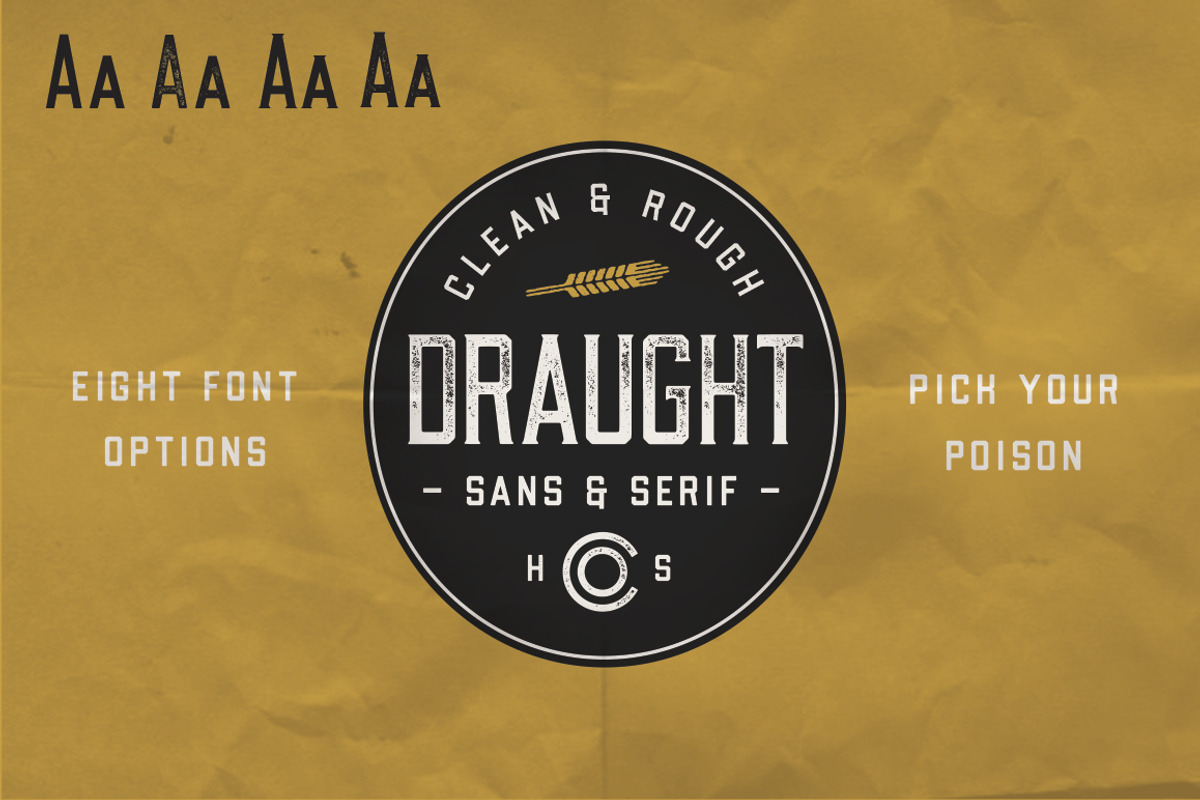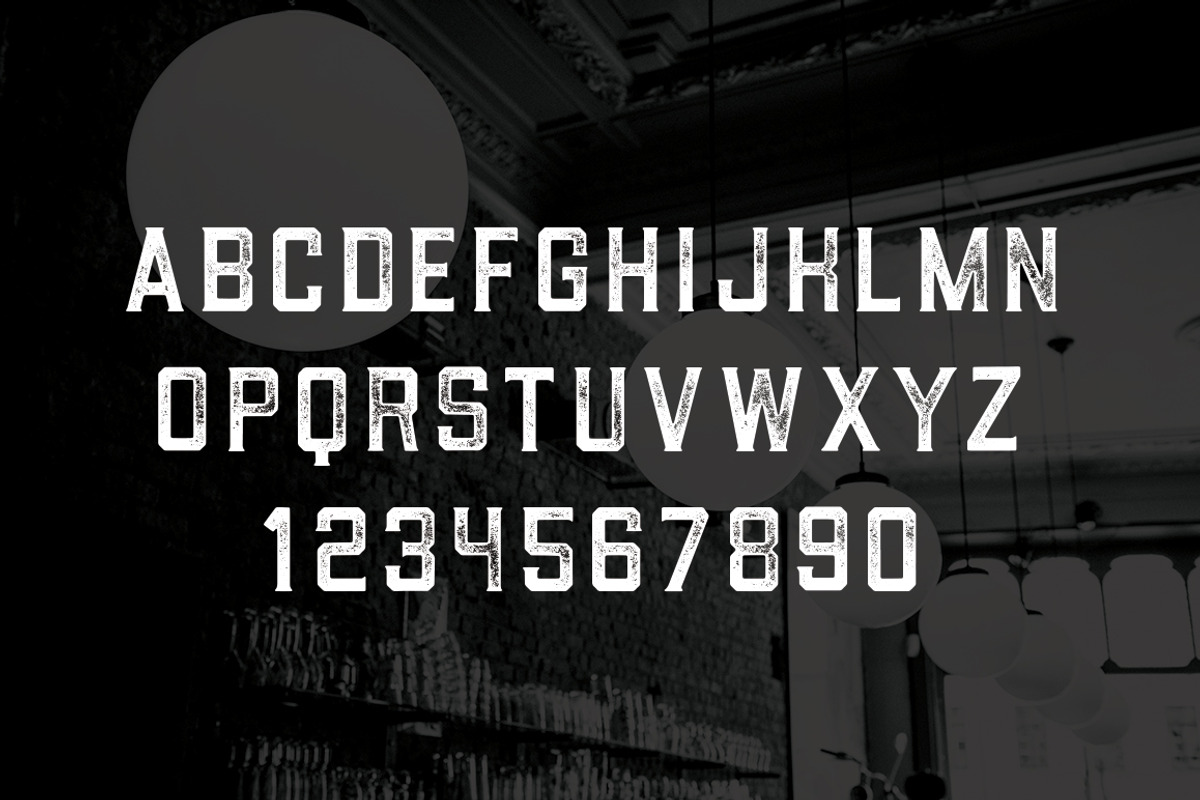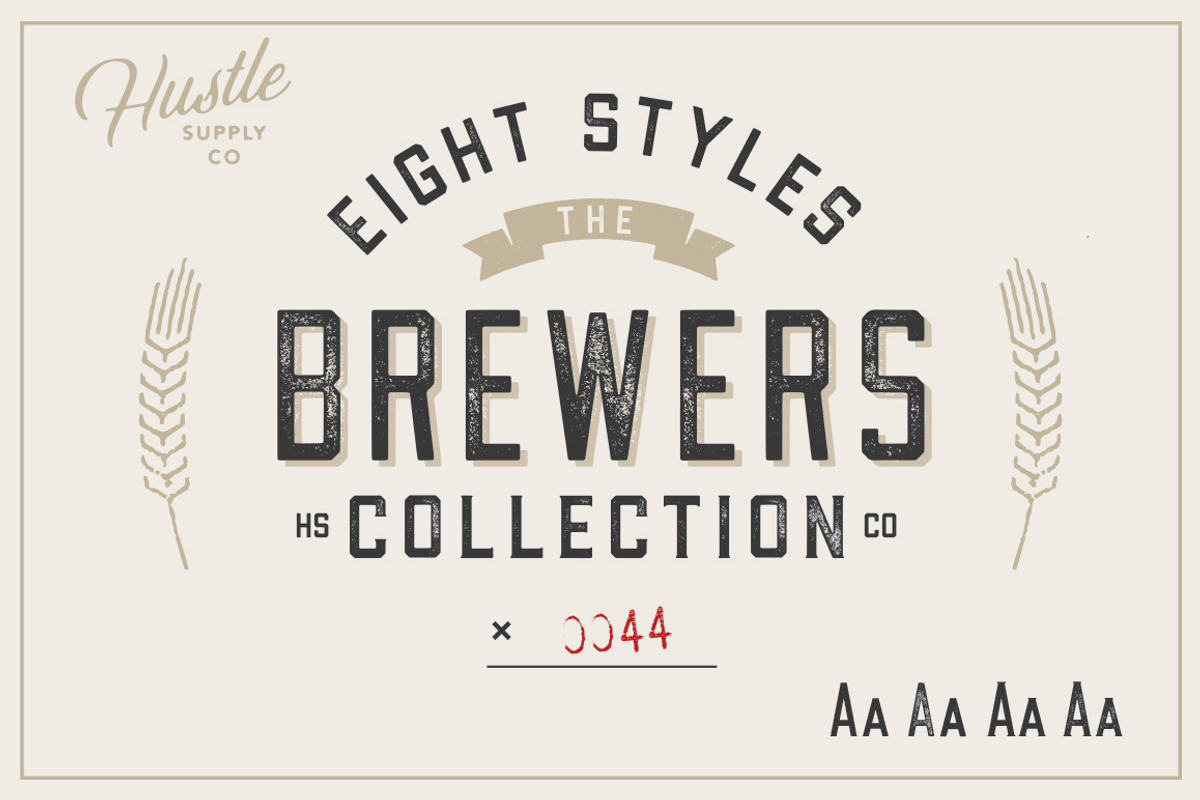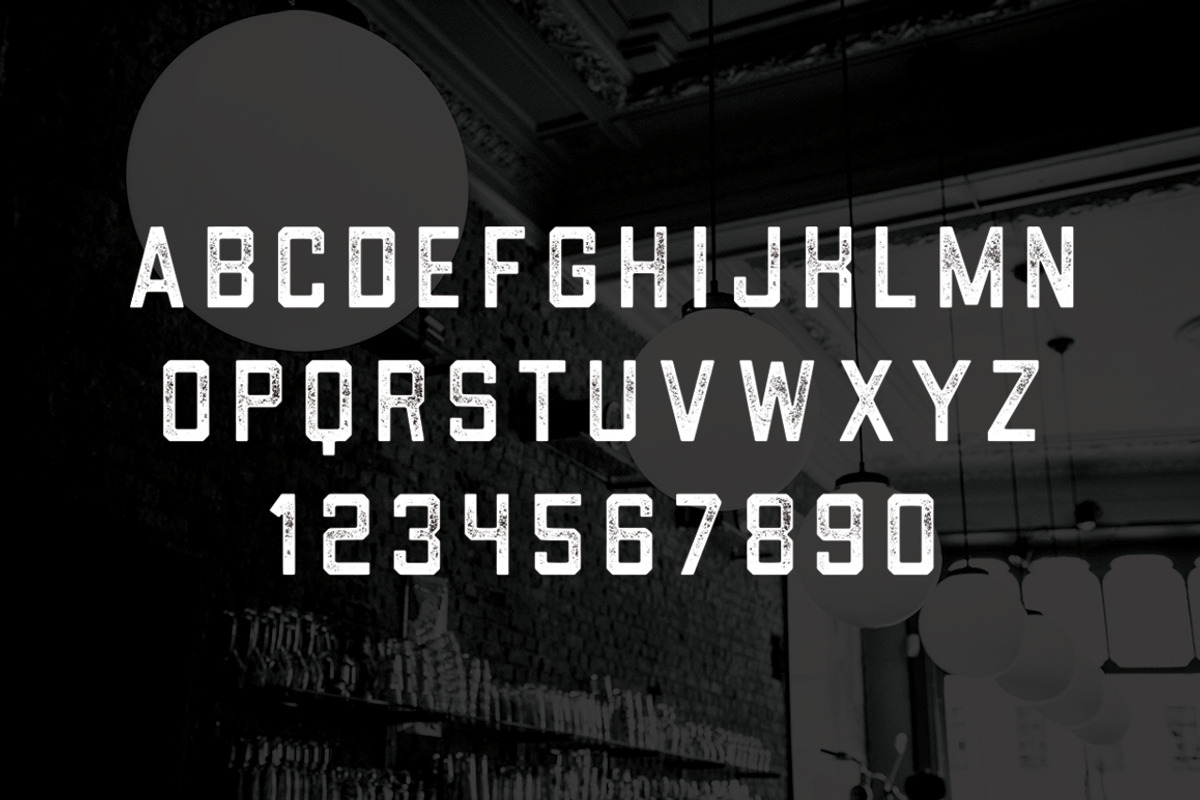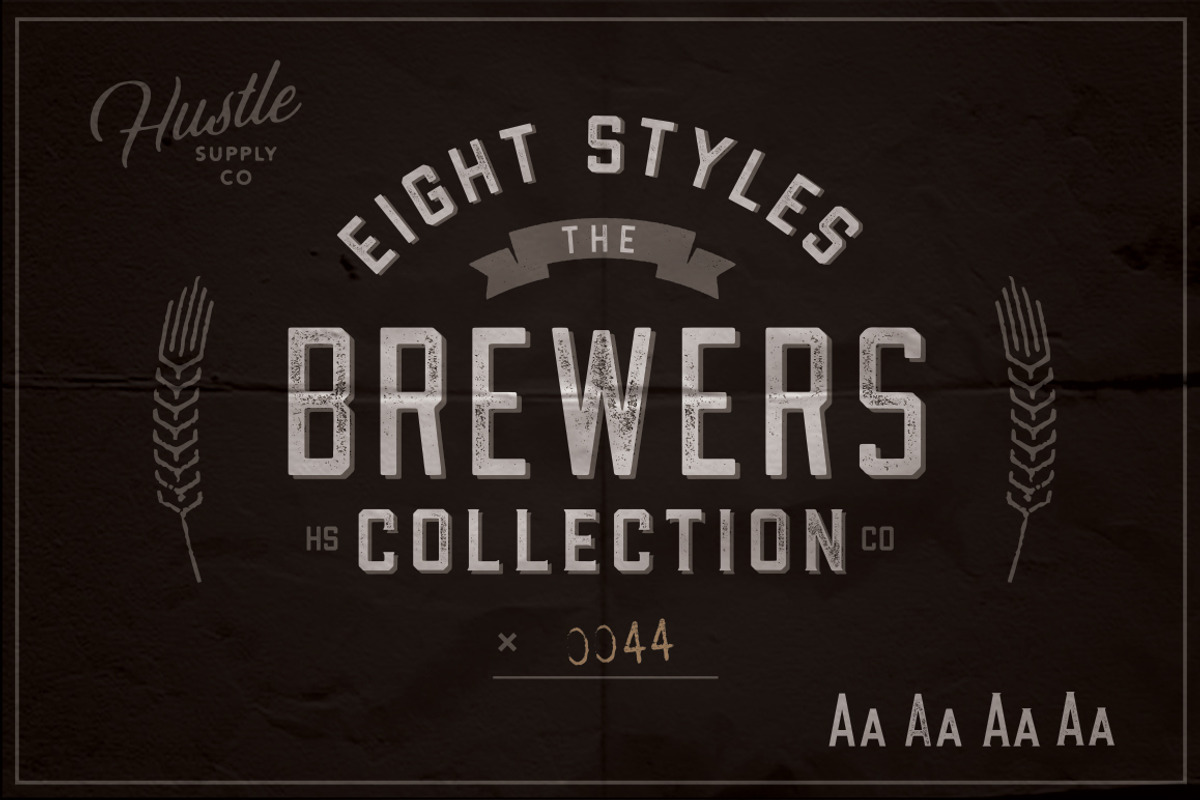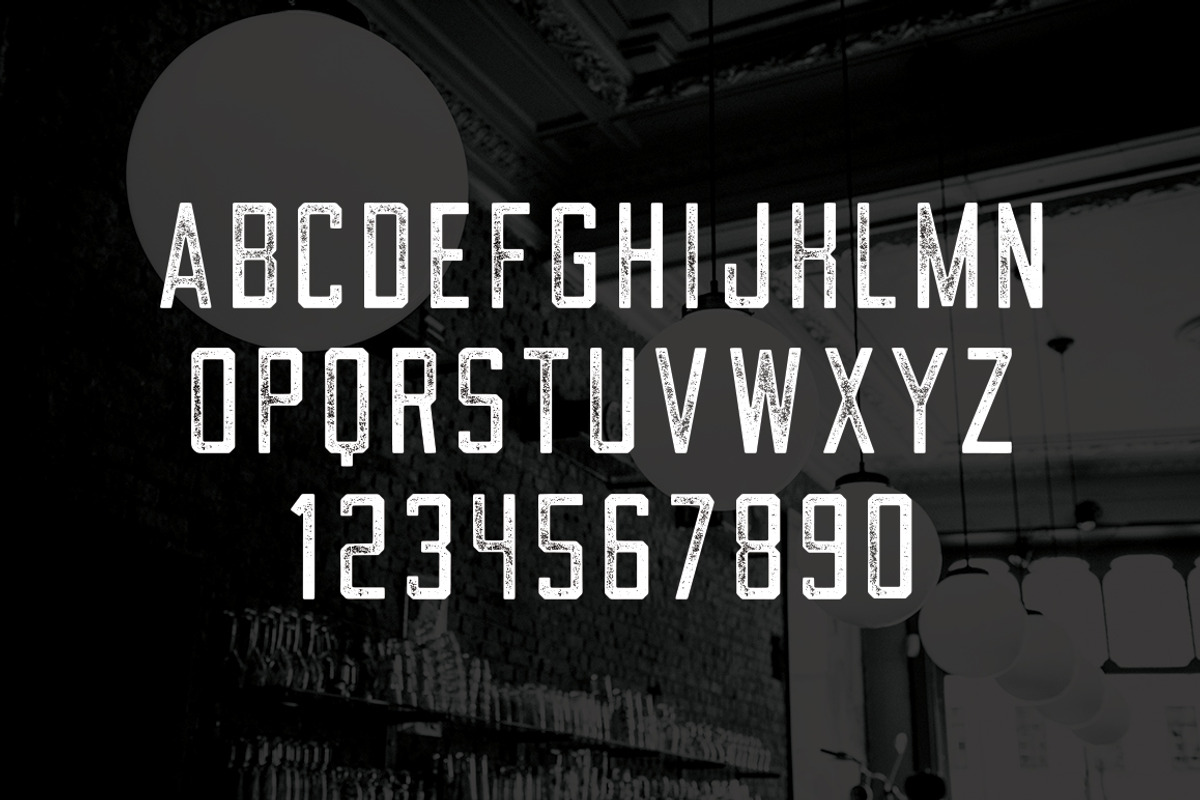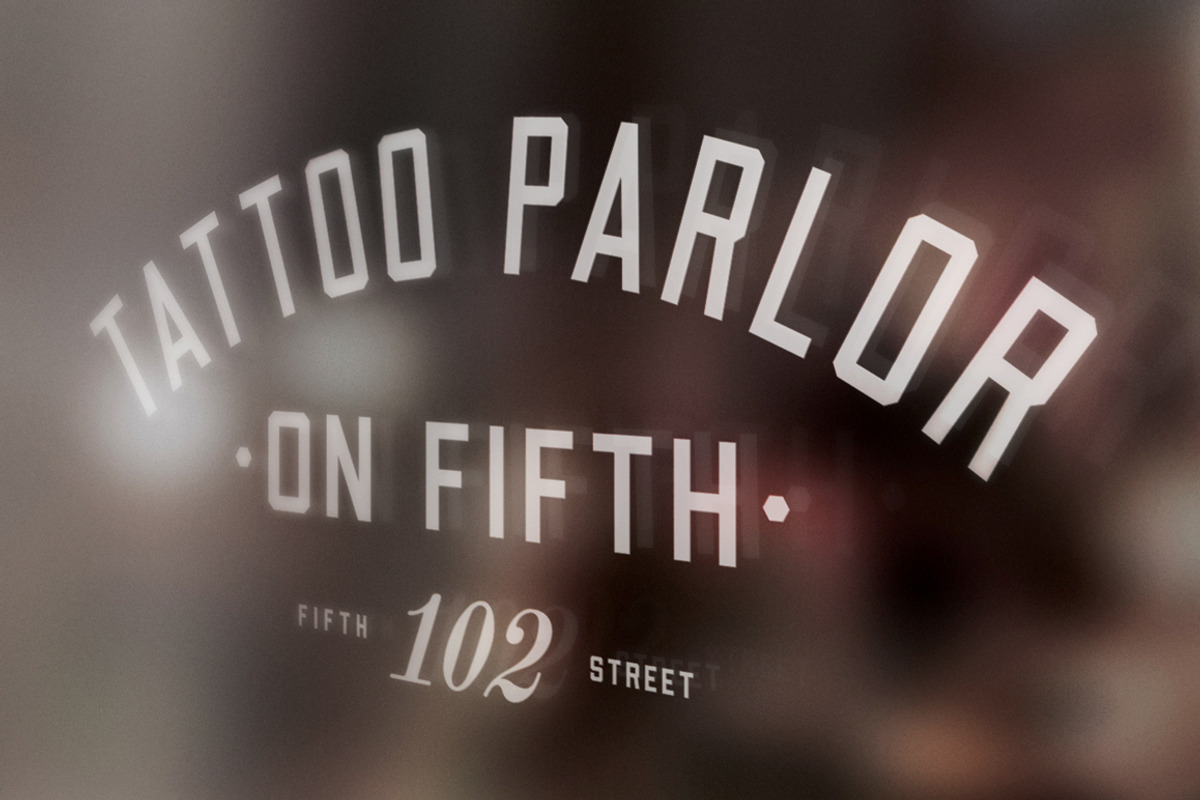
The Brewers Font Collection
The Brewers Font Collection by Hustle Supply Co. is a font selected for branding, posters, packaging, typography.
- On top of that, Draught comes with textured counterparts of each typeface described above.
Why The Brewers Font Collection is worth a look
The Brewers Font Collection by Hustle Supply Co. fits naturally into Branding, posters, packaging, typography.